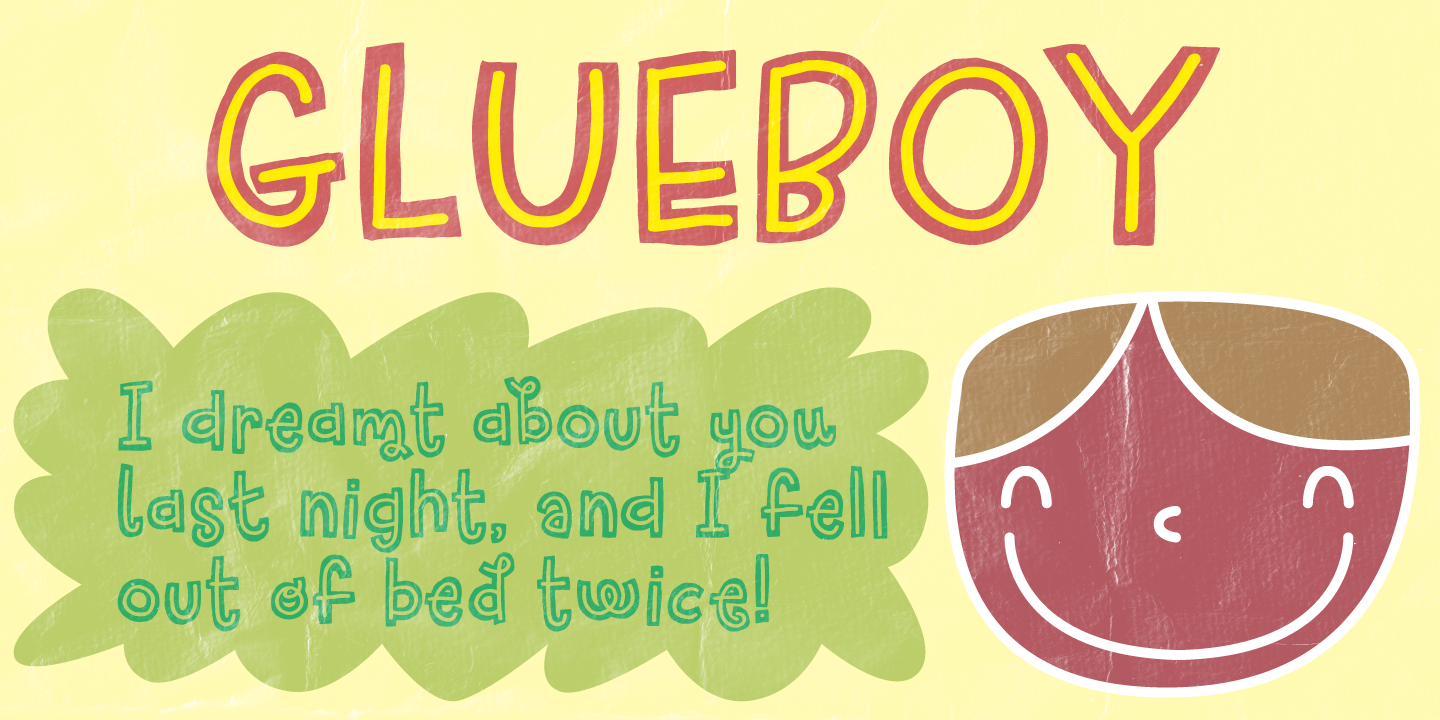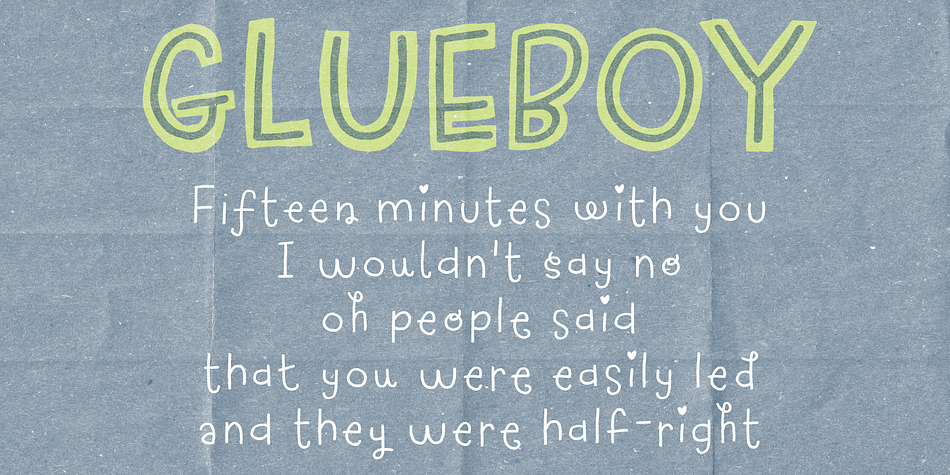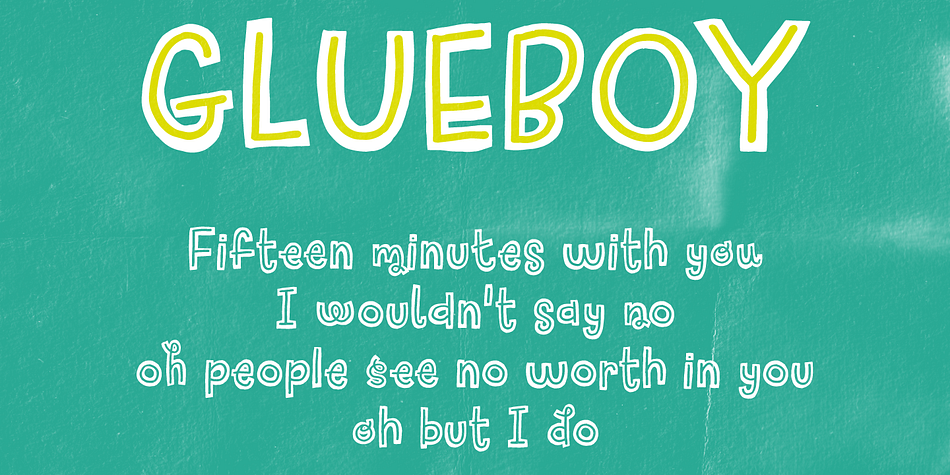
Glueboy is a hand drawn font family. This typeface has three styles and was published by Pizzadude.dk.
Glueboy is often mistakenly suspected of doing something negative. He just wants to be your friend! In this case, Glueboy will stick to your mind and probably your design ... in a good way, of course! ;)
Comes with ligatures for double letters and alternate characters for lower-case. Enjoy!